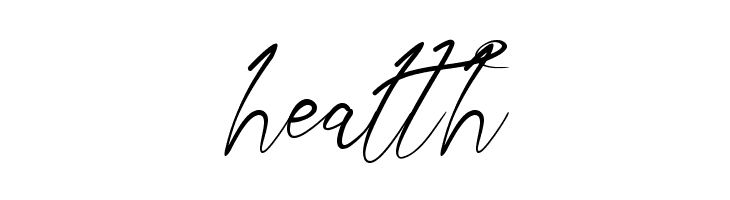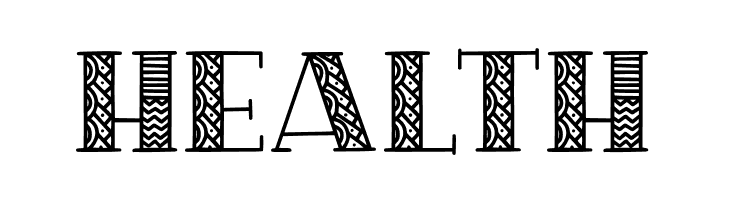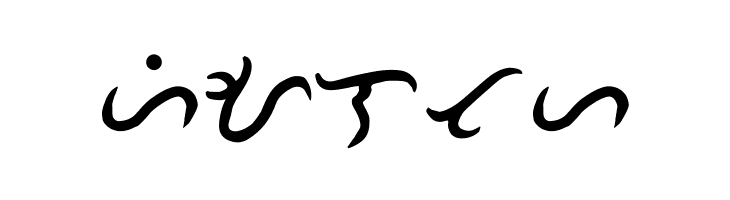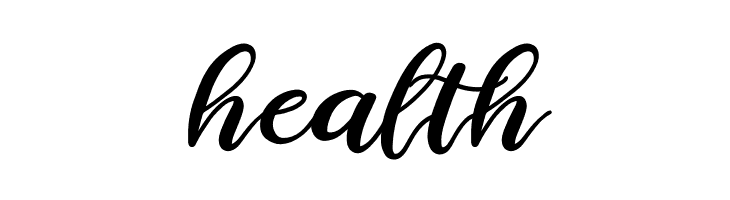
• Aprilisa
A lively and energetic script font with flowing, cursive letterforms.
• Aprillia Wijaya Demo Version
A bold, flowing script font with elegant, dynamic strokes.
• Aprilliant
An elegant, flowing script font with smooth, cursive lines and graceful curves.
• Apu
An artistic, calligraphic font with fluid shapes and dynamic strokes.
• Aqeela
A playful and elegant handwritten script with flowing, connected letters.
• Aqilah
An ornate, decorative font with intricate patterns and flourishes.
• Aqilla
An elegant and flowing script font with graceful curves and fluid strokes.
• Aqillabetta
A bold, playful script font with interconnected characters and smooth curves.
• Aqua Script
An elegant script font with fluid, flowing lines and sophisticated curves.
• AquaColor
A bold, textured font with a hand-painted, artistic style.